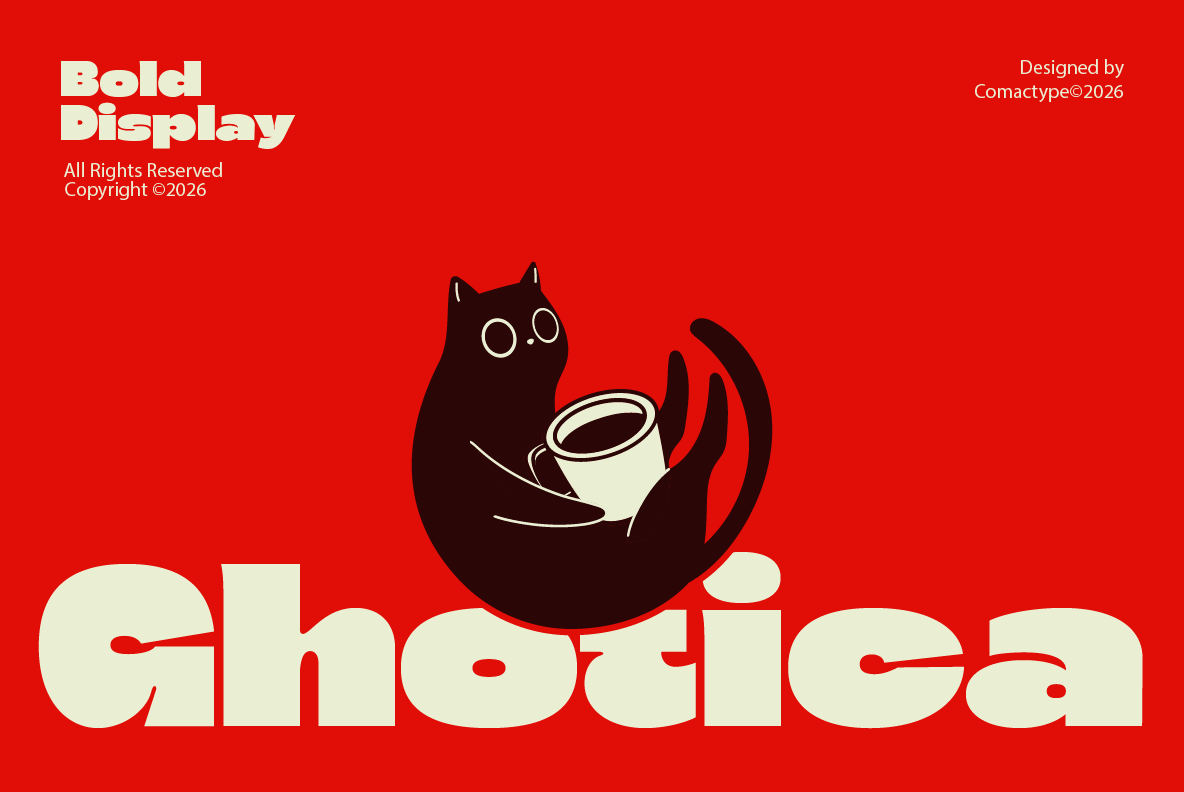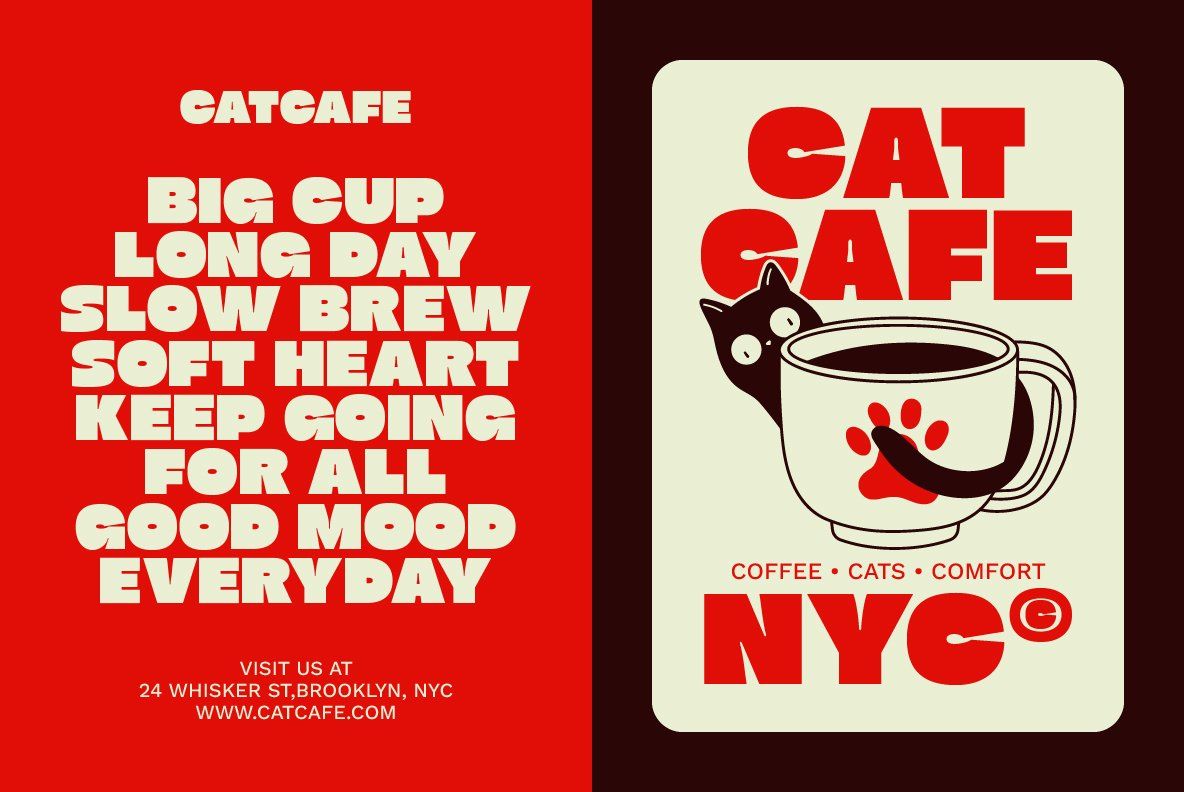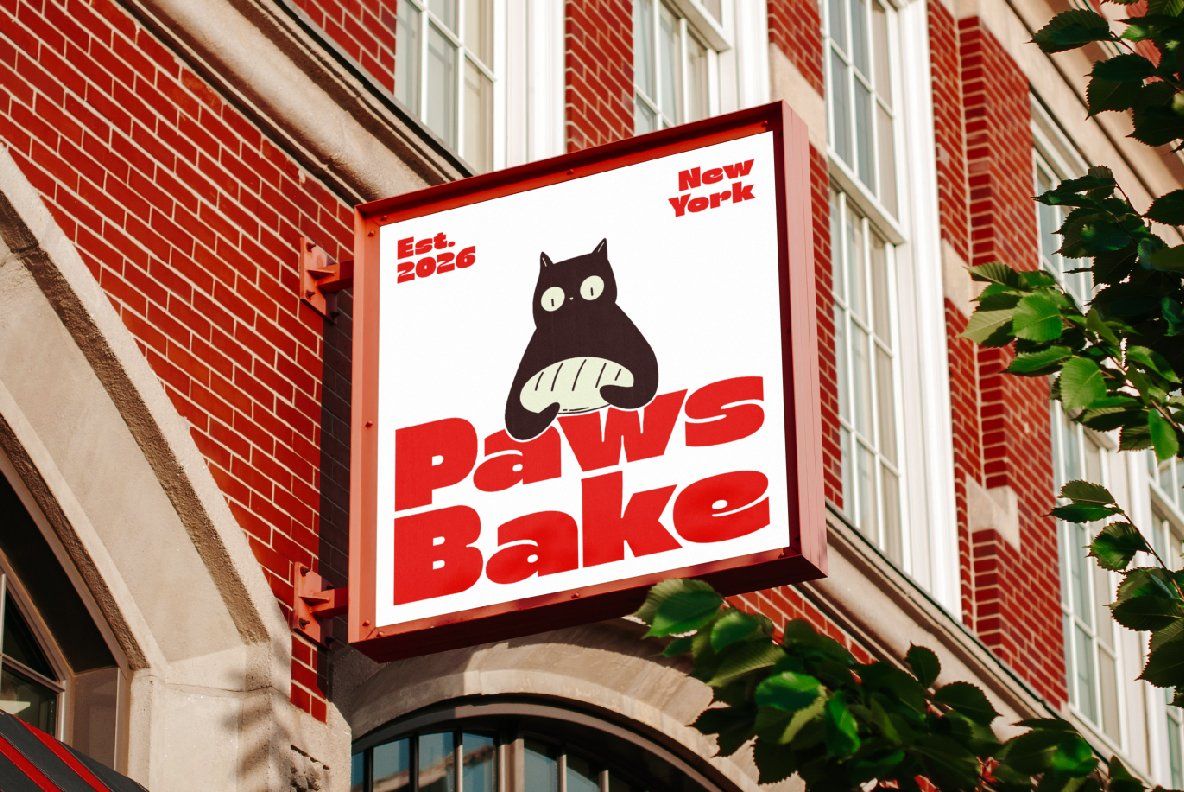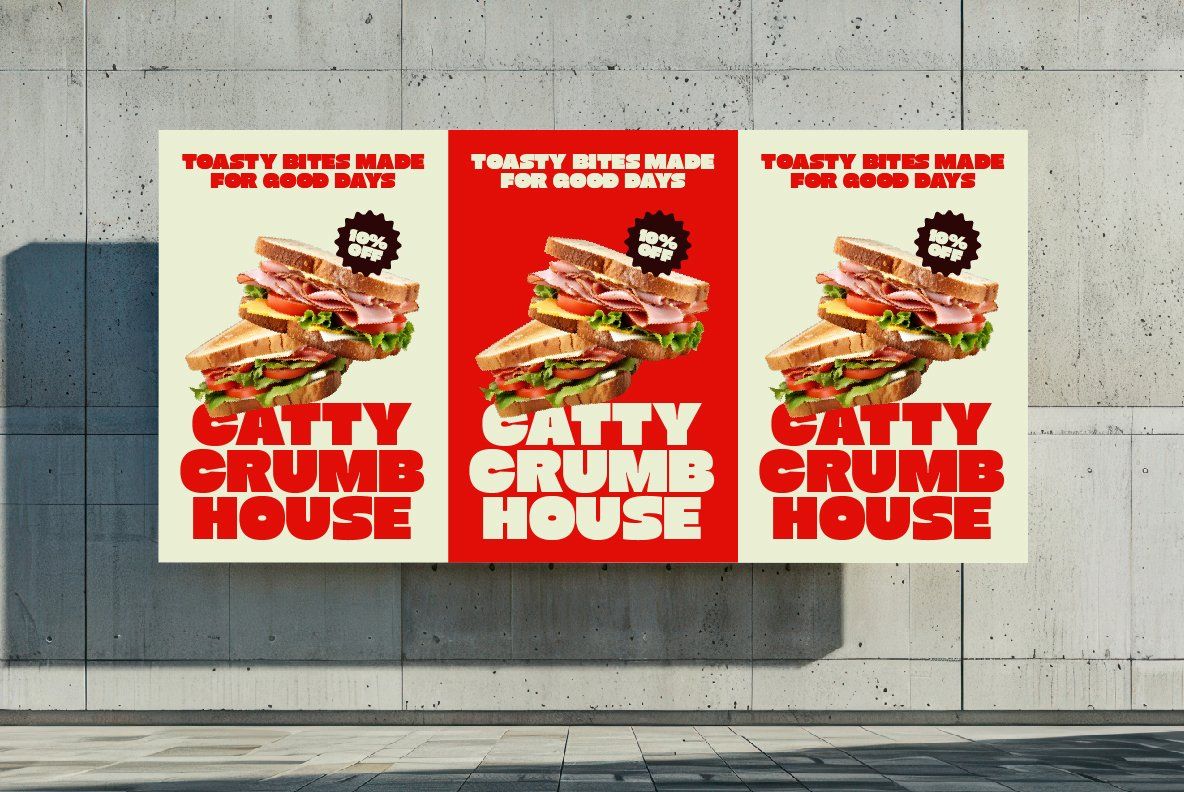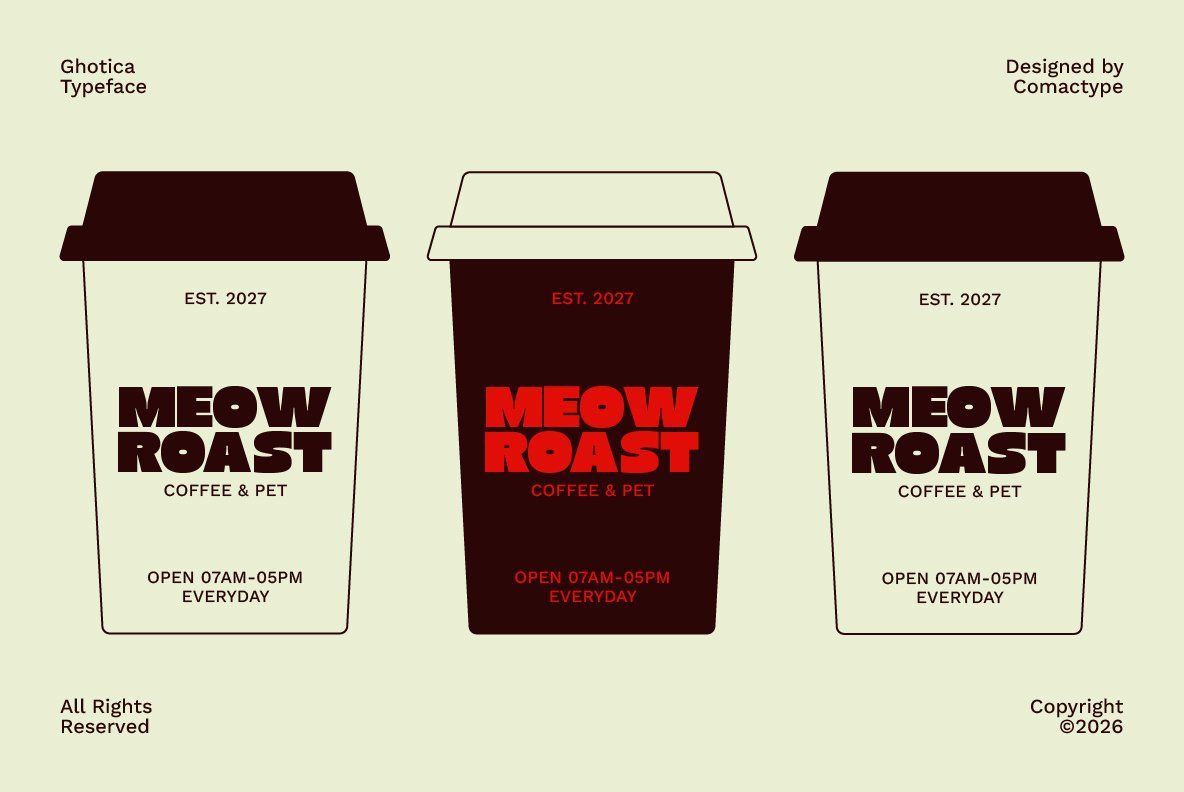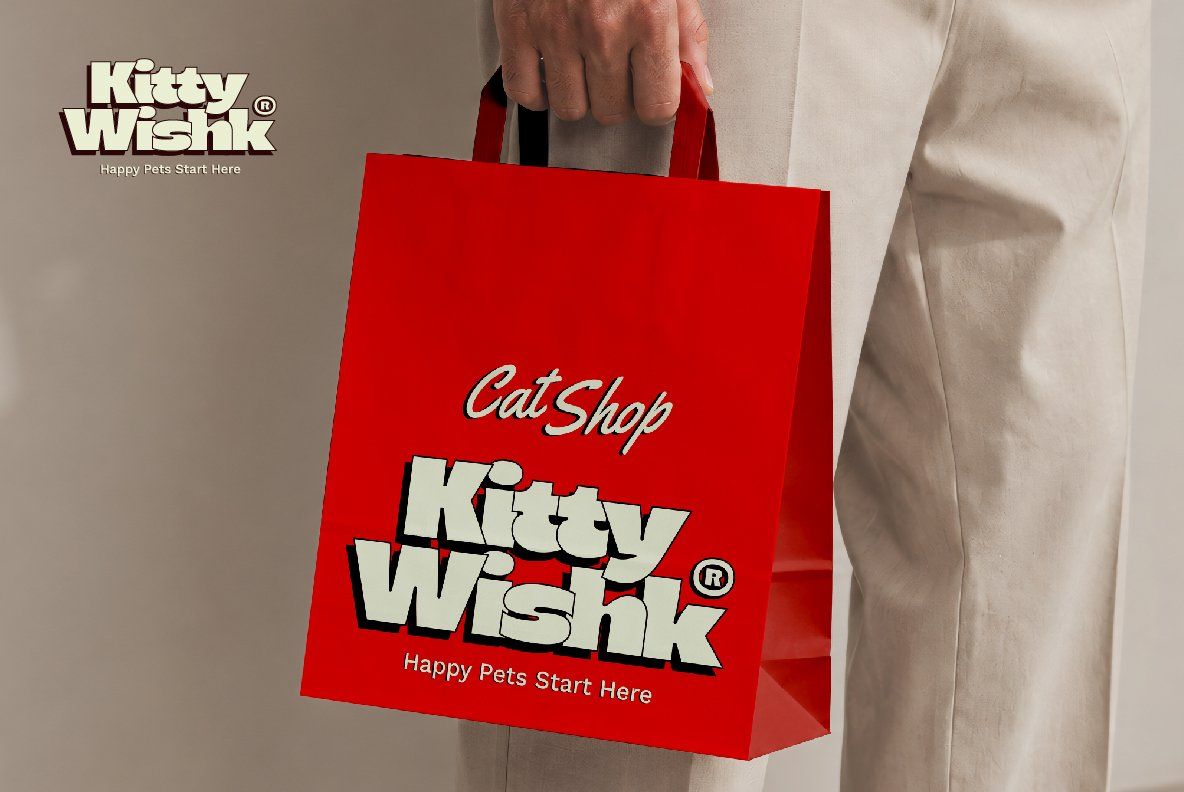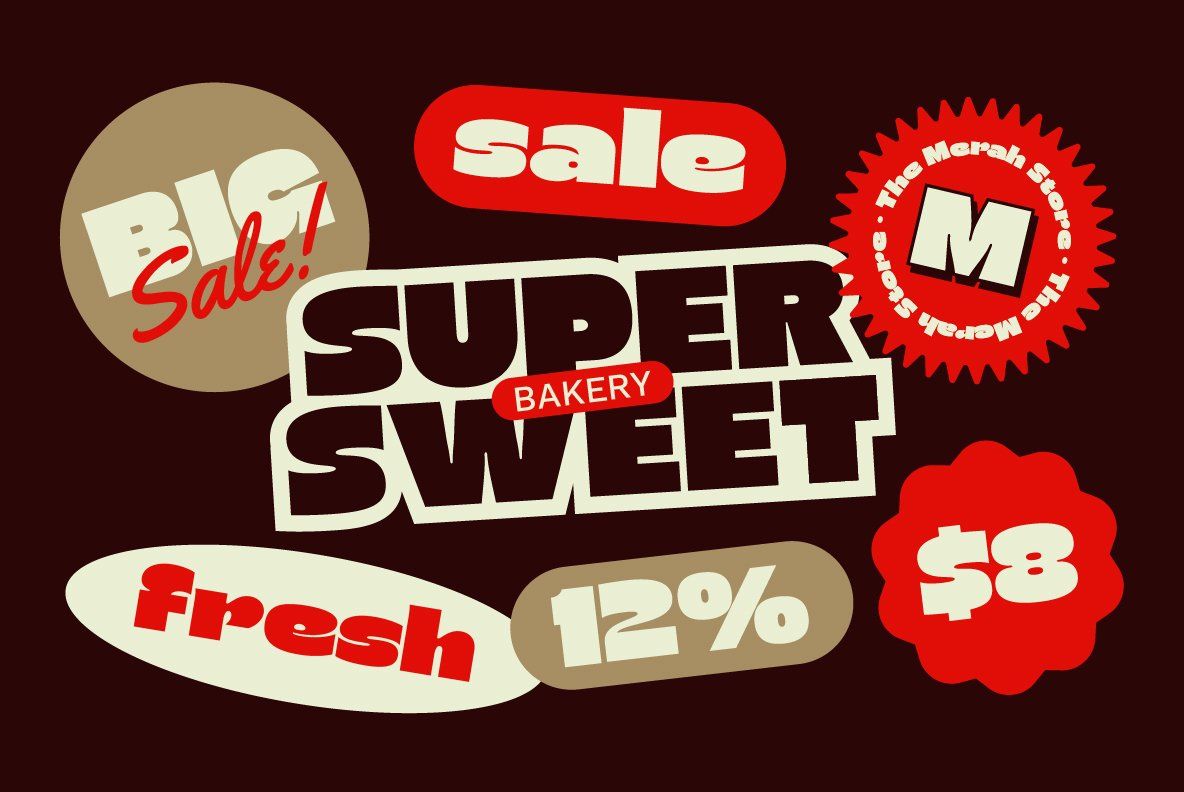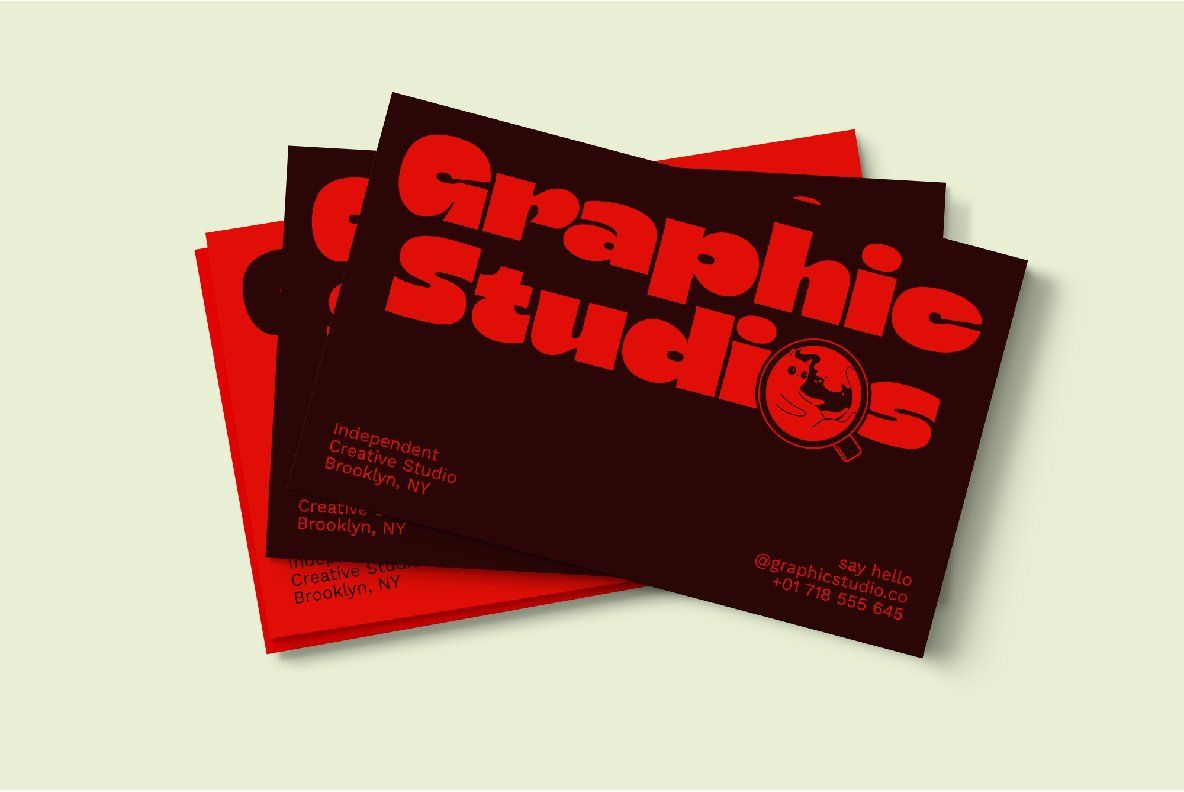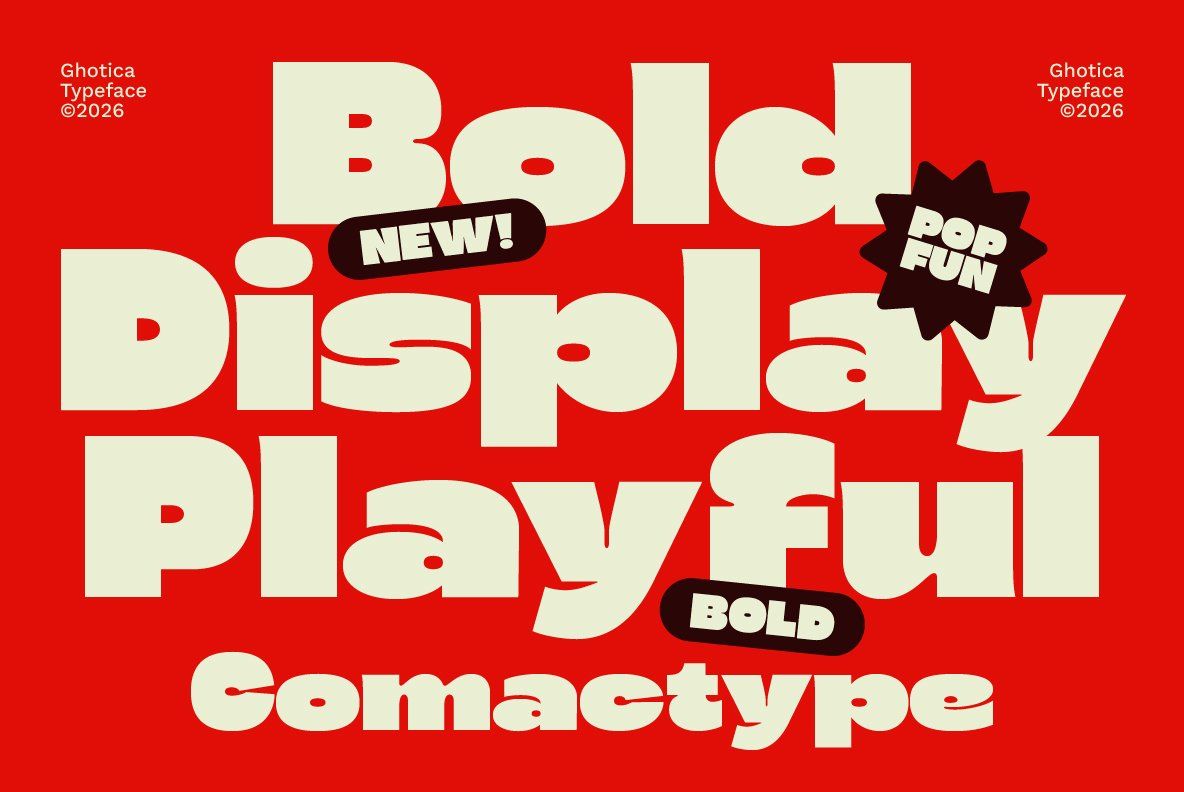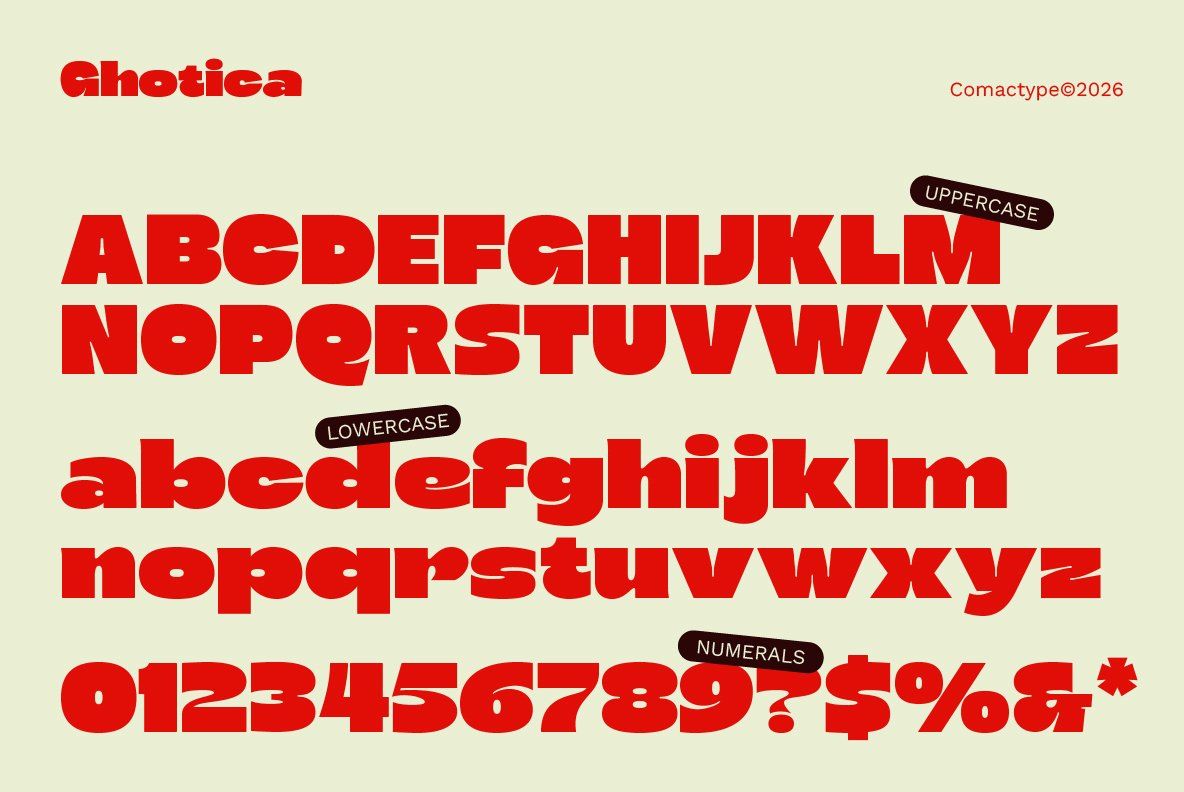
Ghotica is a bold display typeface that blends playful character with strong visual impact. Designed with chunky geometric forms, rounded curves, and distinctive cut-in details, Ghotica brings a unique personality to every design. Its heavy weight and compact structure make it highly effective for headlines, logos, branding, packaging, posters, and social media graphics that demand attention.
Inspired by retro aesthetics and contemporary graphic trends, Ghotica delivers a warm, friendly, and expressive look while maintaining excellent readability. The font features eye-catching uppercase and lowercase characters, numerals, and punctuation, allowing designers to create memorable visual identities with ease. Whether used for café branding, food packaging, event promotions, merchandise, or creative editorial layouts, Ghotica adds a bold and cheerful presence that stands out across both print and digital media.
With its quirky shapes and confident style, Ghotica is the perfect choice for designers looking to inject energy, creativity, and character into their projects.